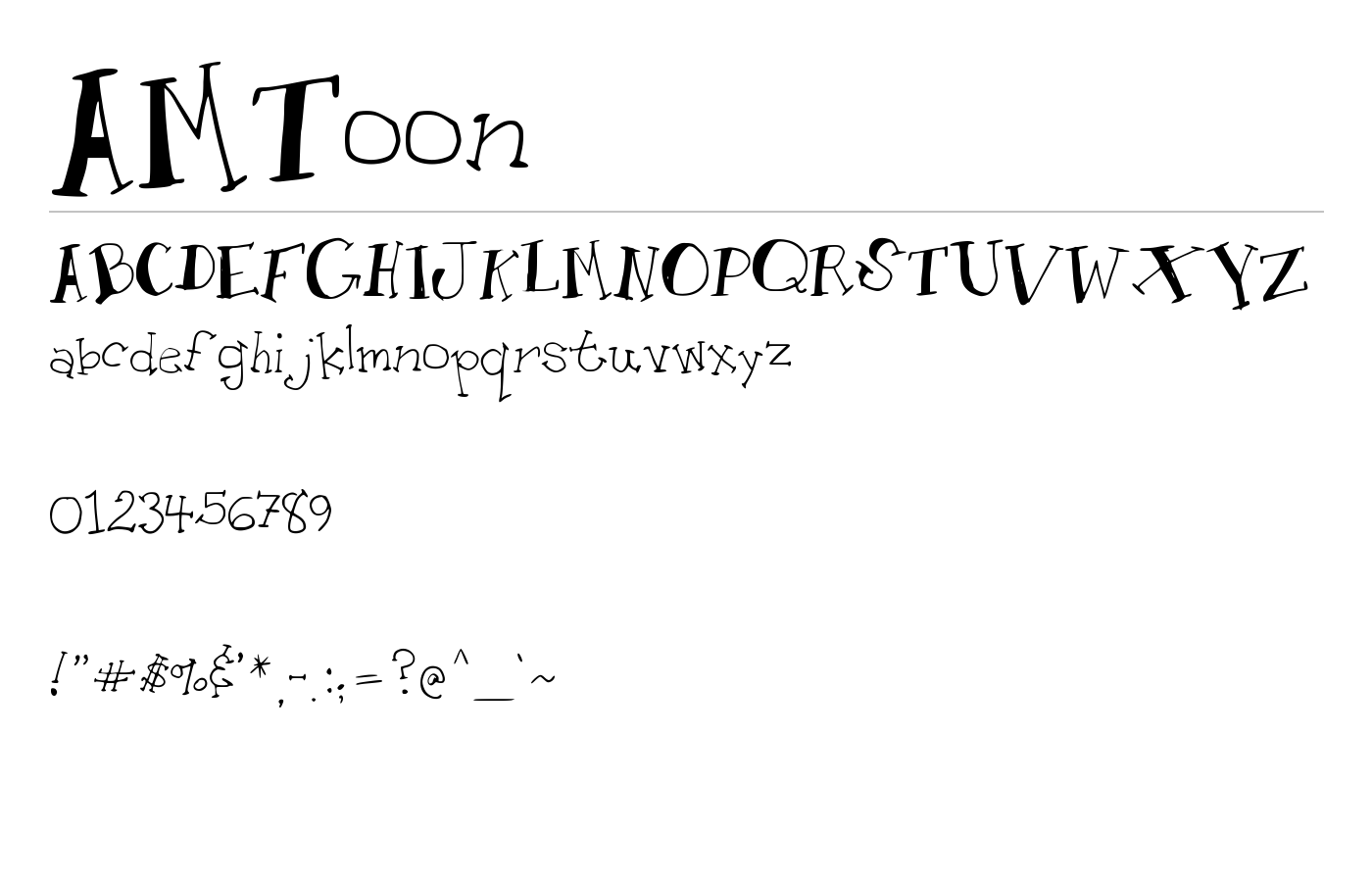
AMToon is a whimsical and playful serif font with uneven strokes and quirky letterforms that give it a hand-drawn, cartoon-like charm. Its irregular shapes and mix of bold uppercase letters with delicate lowercase create a fun and informal feel, making it perfect for creative projects, children’s books, or casual branding that seeks a lighthearted and unique personality.
AMToon Font
About AMToon Font